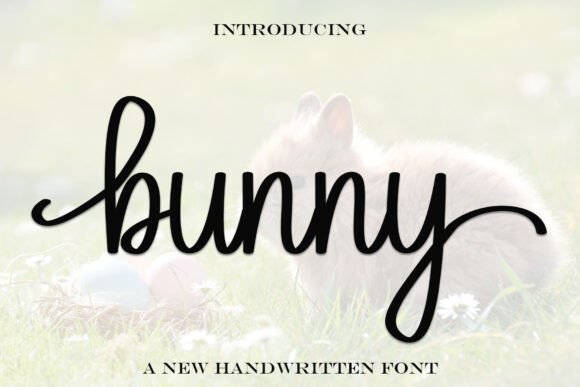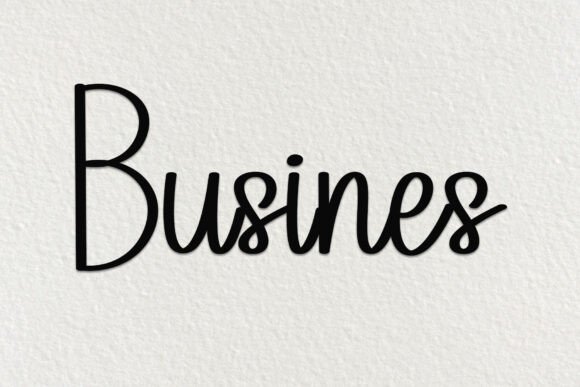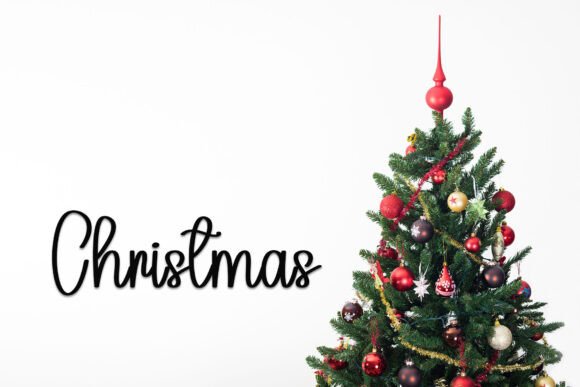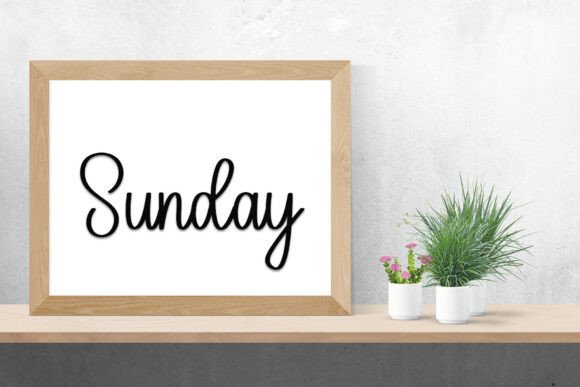
Bunny Font: A Cute Handwritten Script for Cricut & DIY Projects
About the Bunny Font
The Bunny Font offers a perfect balance of form and function for your design needs. Bunny is a trendy handwritten font with a contemporary atmosphere and impeccable form, inspired by timeless classic calligraphy. It will add elegance and class to any of your design projects.
Bunny excels in applications requiring a touch of sophisticated elegance, such as logos, short headlines, invitations, and social media graphics. Its refined curves and consistent stroke weight lend themselves well to branding projects seeking a premium feel. However, its handwritten nature makes it less suitable for body text or lengthy paragraphs; readability suffers at smaller sizes. Avoid using it in UI or situations requiring high legibility.
Pairing Bunny with a clean sans-serif like Montserrat or a geometric sans-serif like Futura provides a strong contrast and modern balance. For a warmer feel, consider pairing it with a serif like Garamond or a script font with less pronounced flourishes for a cohesive yet varied look.
Bunny’s overall personality is elegant and friendly, conveying both sophistication and approachability. It’s ideal for brands focusing on luxury goods, lifestyle products, or creative services that want to project a sense of refined style.